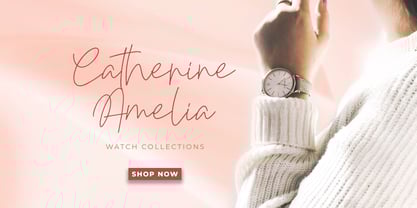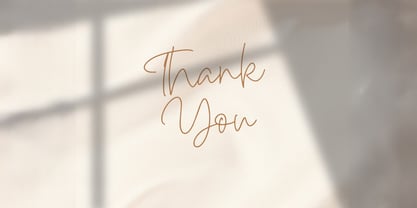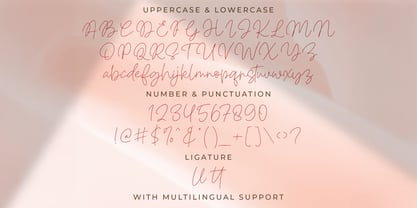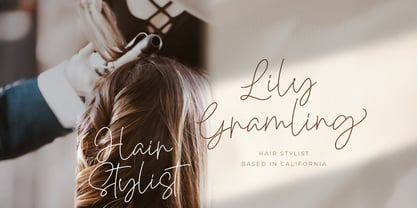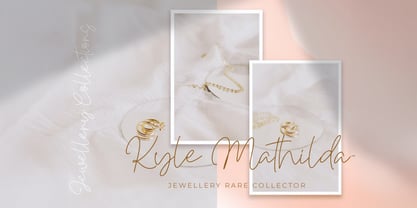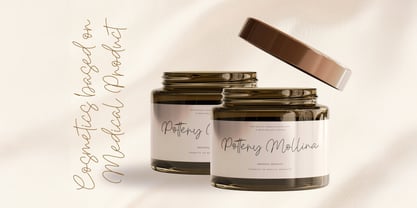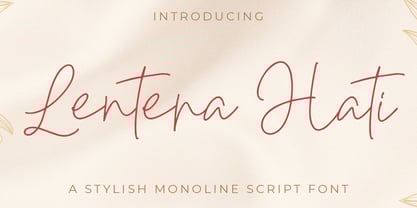
Lentera Hati
by Stringlabs Creative Studio
The Lentera Hati Font Family was designed by Virgiawan Listanto and published by Stringlabs Creative Studio. Lentera Hati contains 1 styles. More about this family
Lentera Hati is a heartfelt handwritten font that captures the gentle rhythm of personal expression. With smooth curves and an organic, flowing style, it evokes warmth, sincerity, and a quiet elegance like a soft light guiding your message.
Designers: Virgiawan Listanto
Foundry: Stringlabs Creative Studio